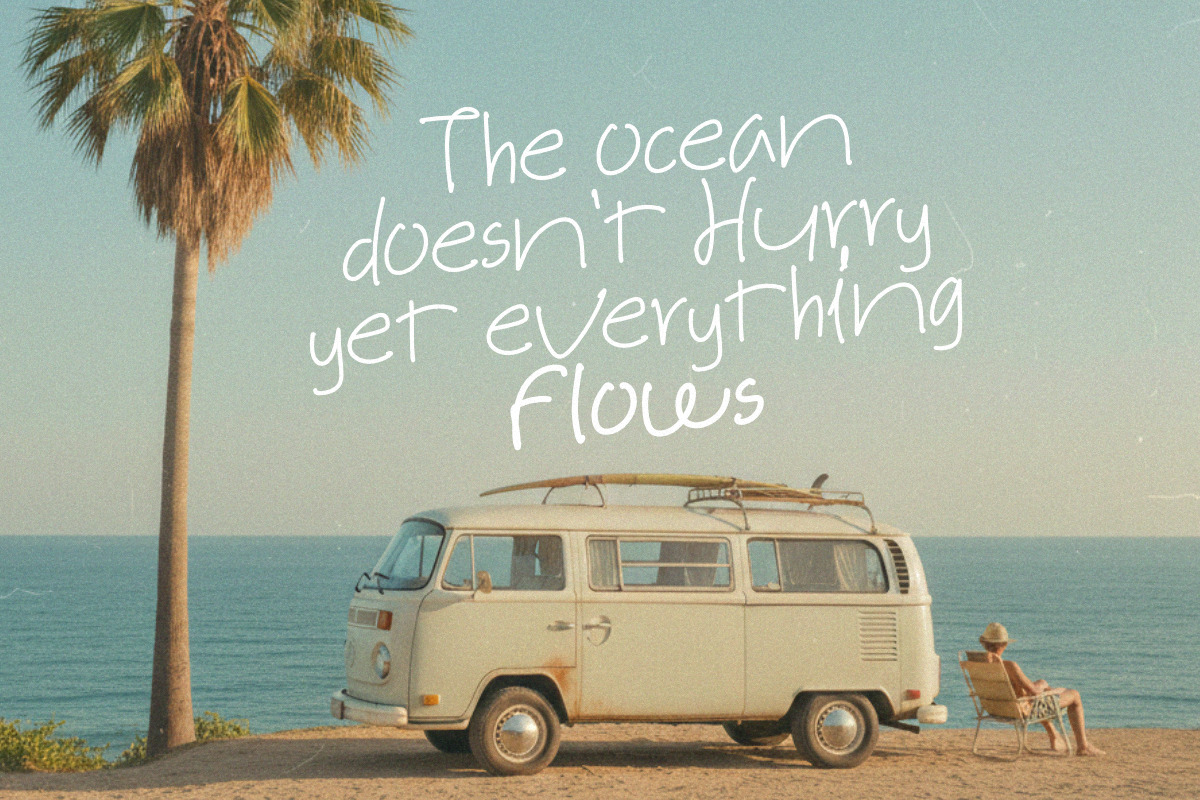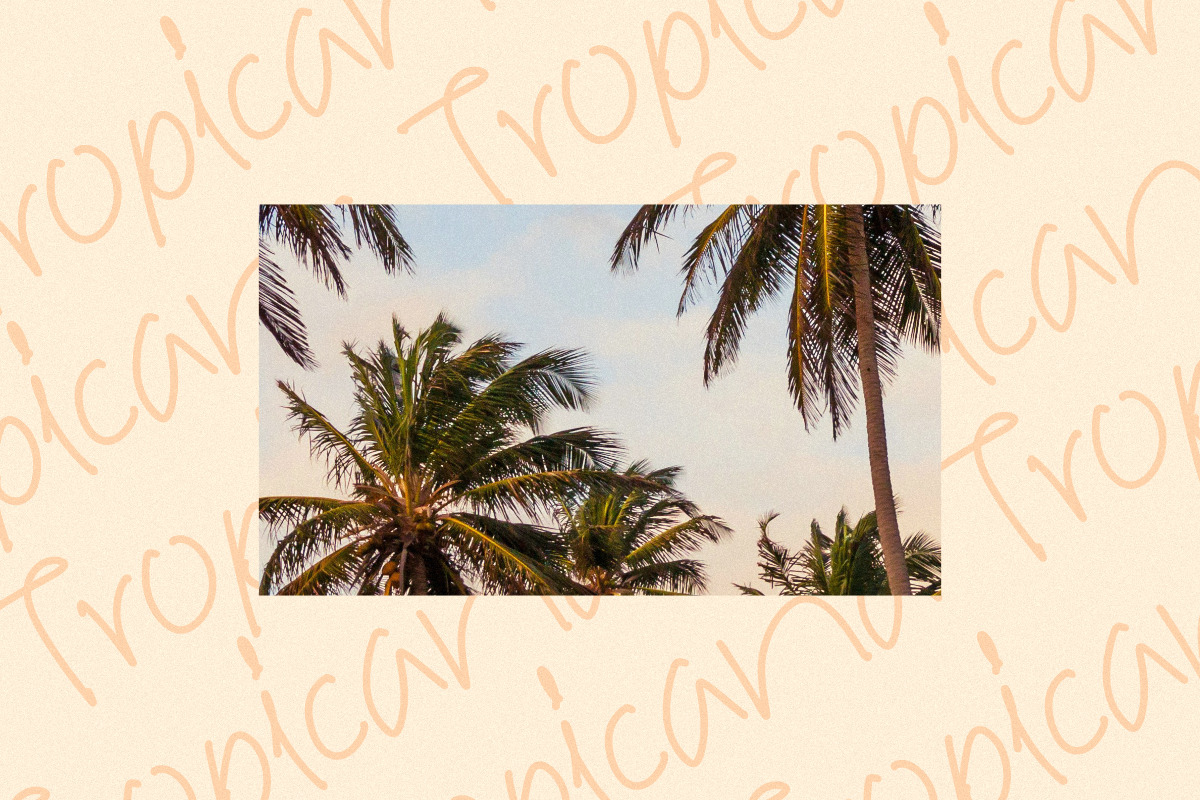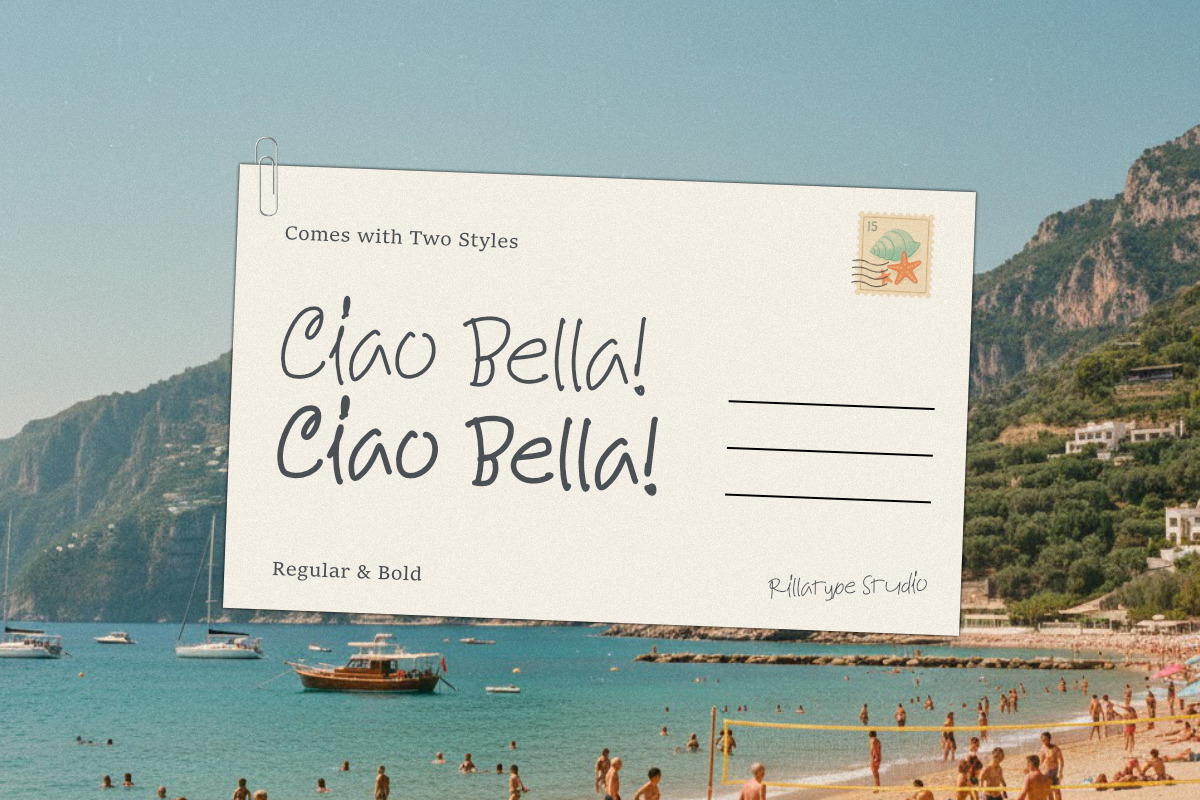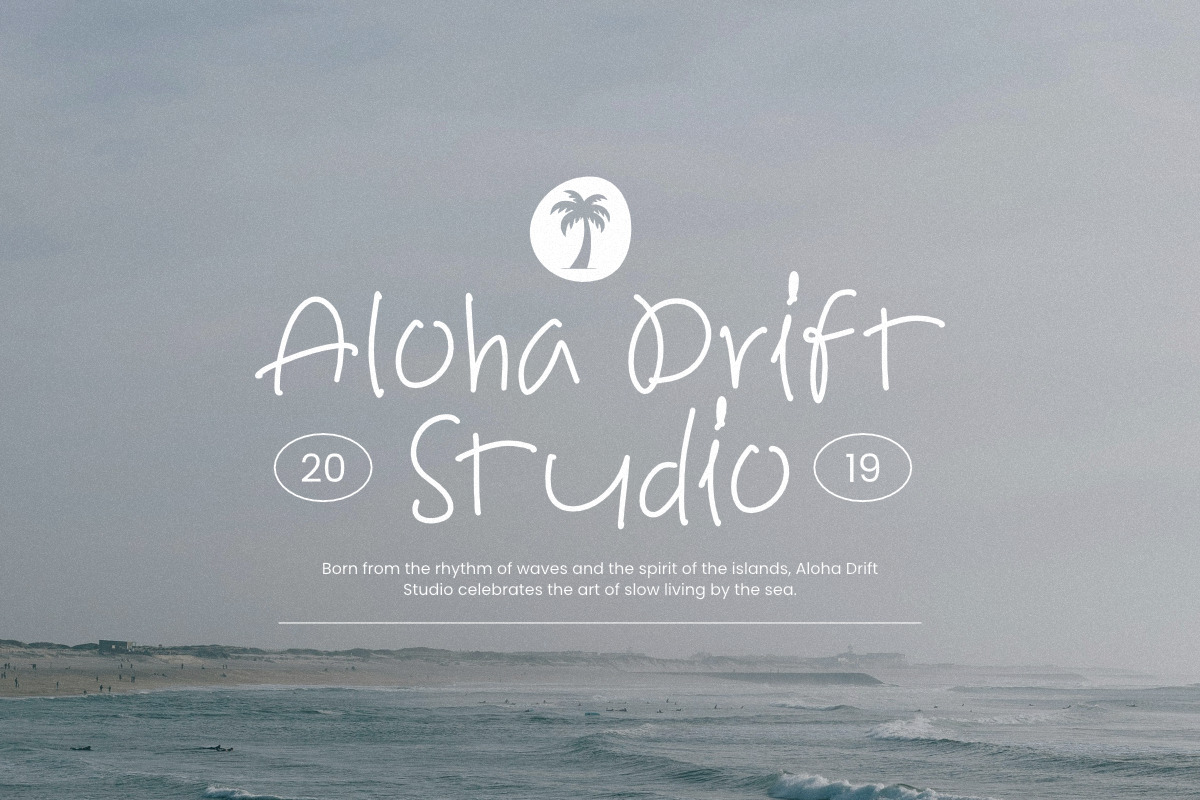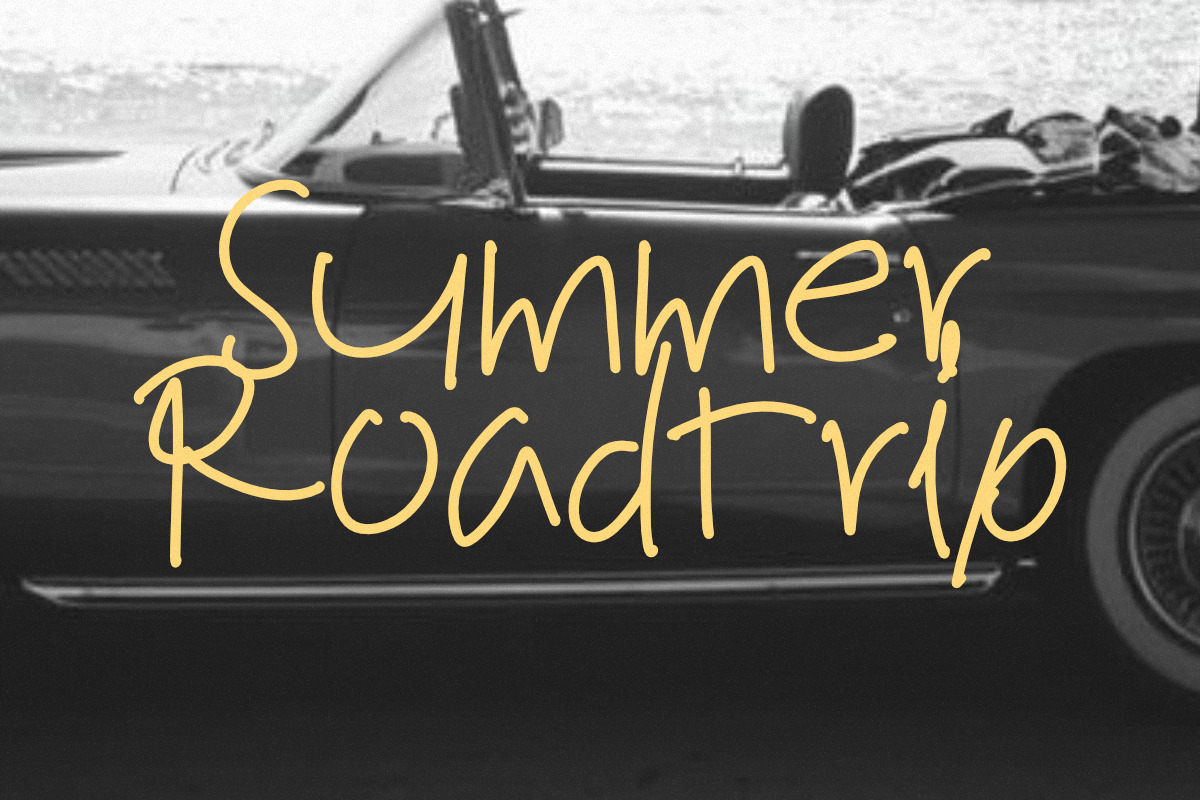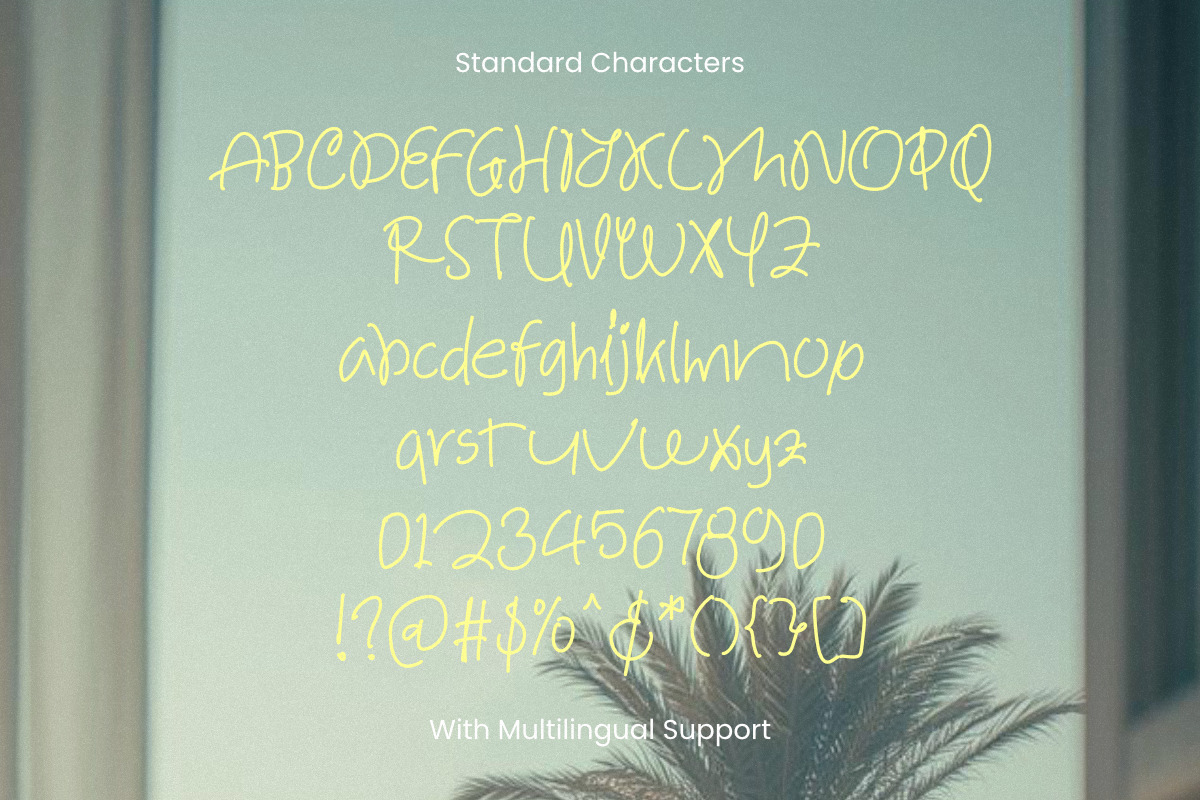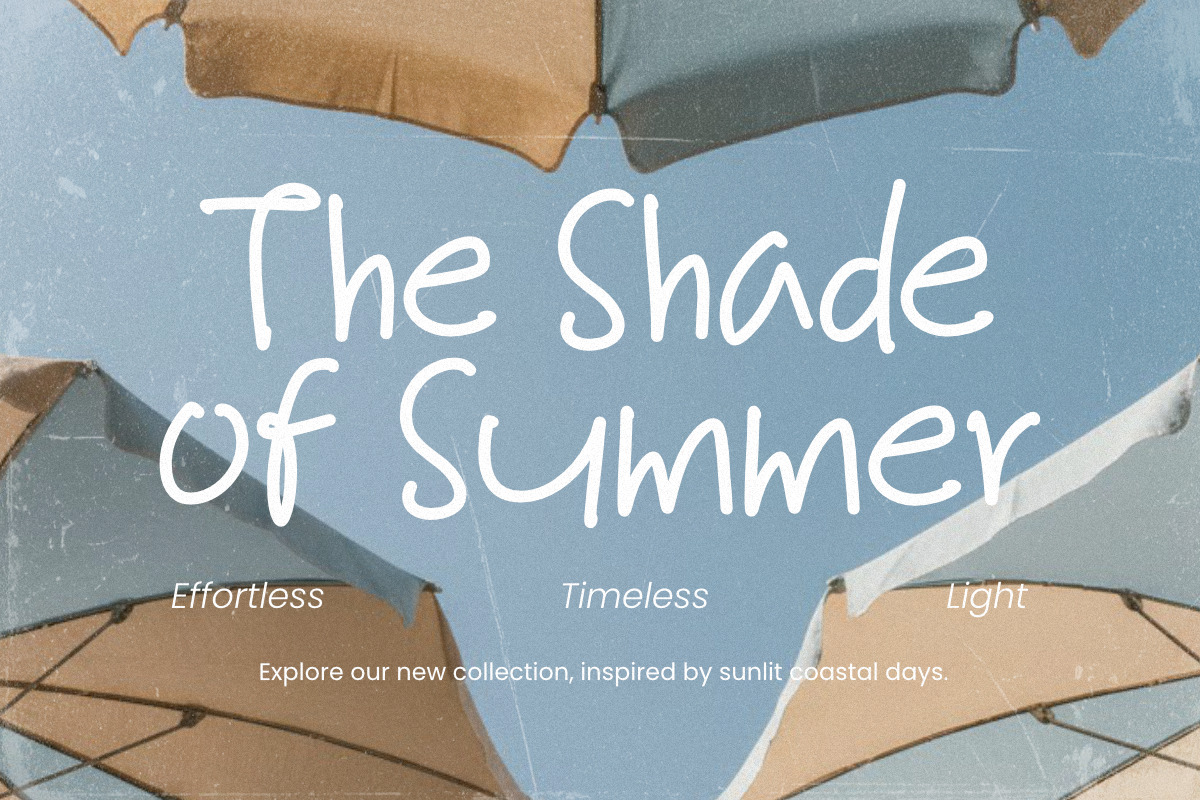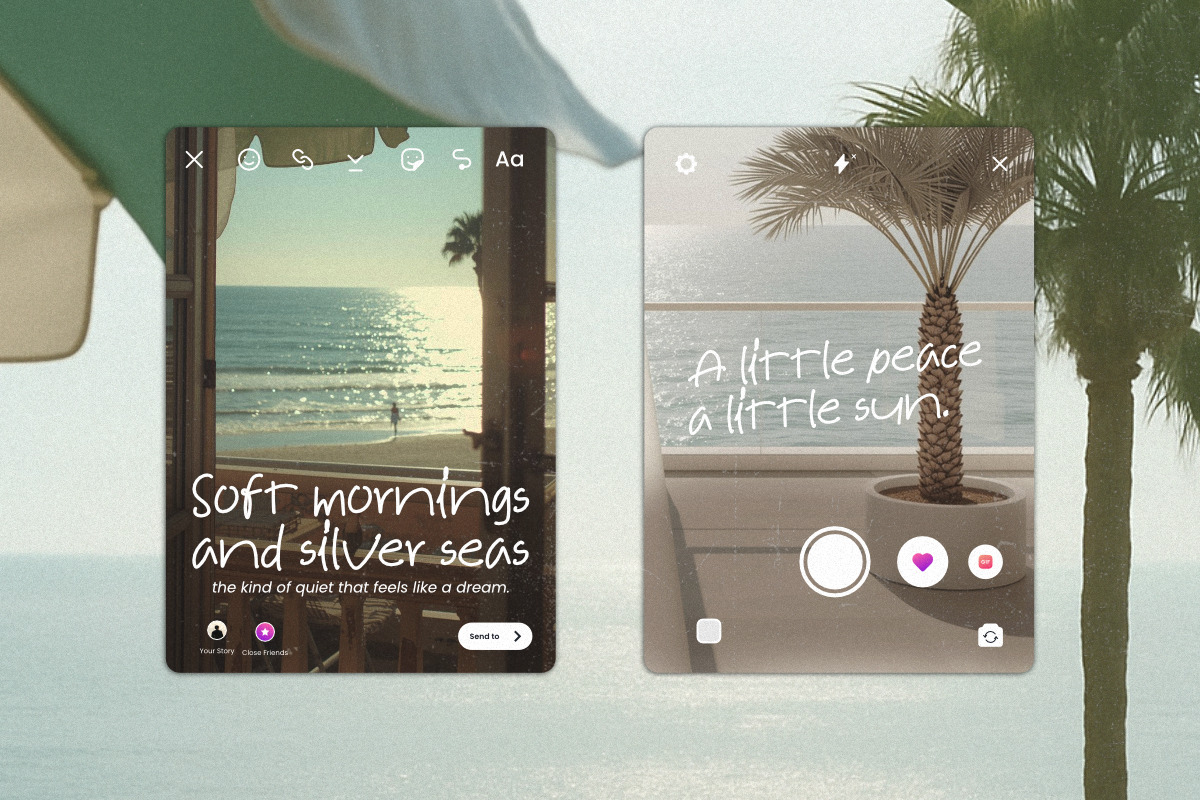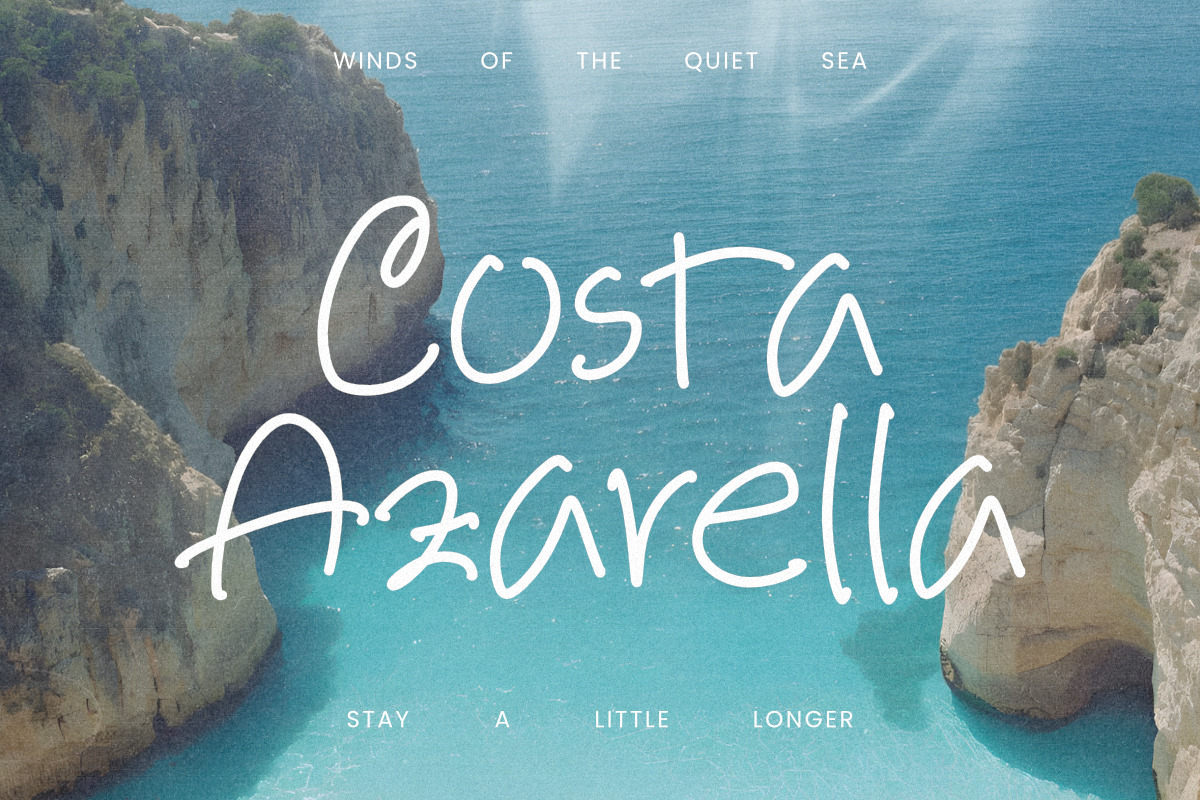
Radiant Summertime
Radiant Summertime is a playful handwritten font that captures the warmth and carefree spirit of sunny beach days. Its smooth strokes and organic flow bring a natural sense of joy, making it perfect for summer-themed projects, travel journals, posters, and lifestyle branding. The casual yet radiant style of this font evokes a nostalgic feeling — just like footprints on the sand and laughter under the sun.
This font comes in two styles: Regular and Bold, allowing for versatile use in both light and standout designs. Available in OTF and TTF formats, Radiant Summertime ensures compatibility across all platforms and design tools. Whether you’re crafting social media visuals or branding a seasonal campaign, this font adds the perfect touch of handwritten charm and warmth.